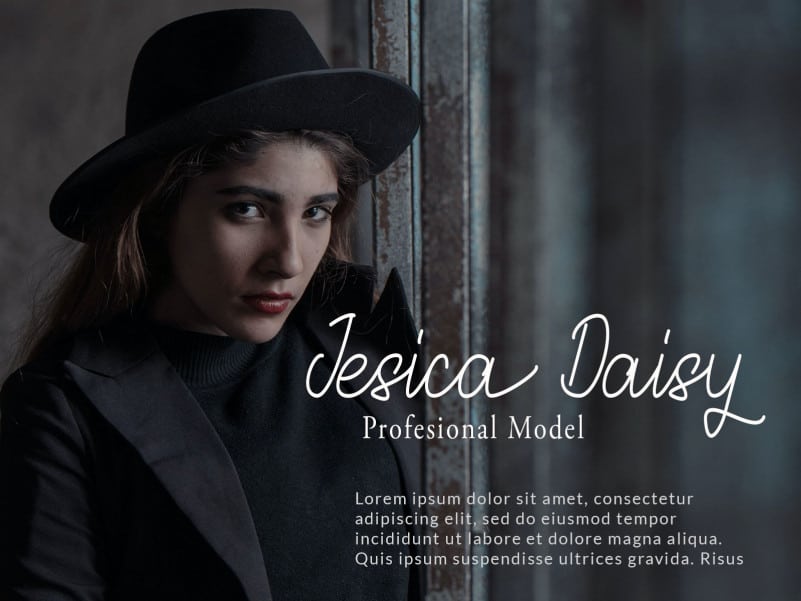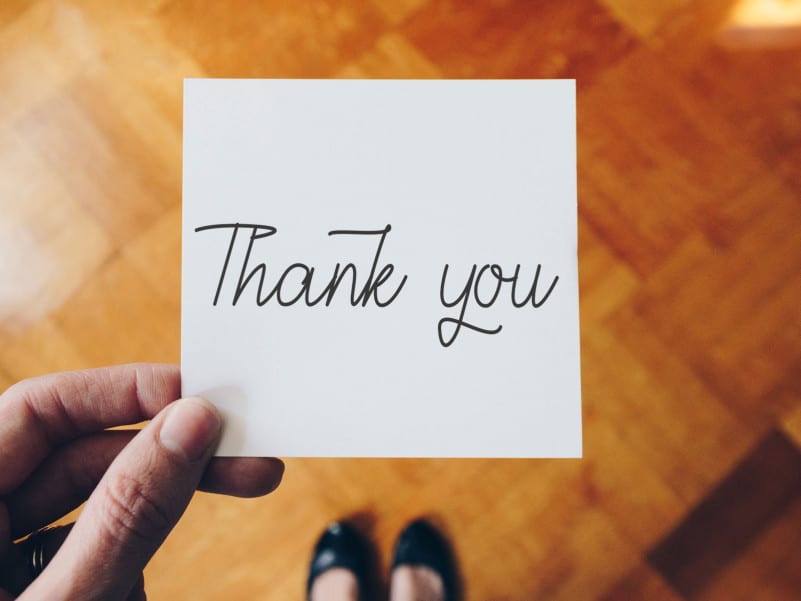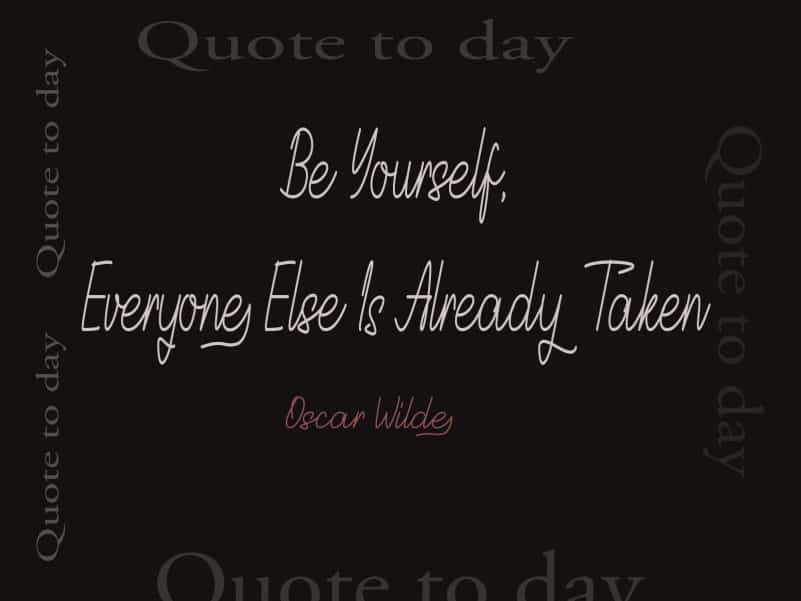
Delisya Handwritten Font
Delisya Handwritten Font is a stylish and incredibly elegant script font. It looks stunning on wedding invitations, thank you cards, quotes, greeting cards, logos, business cards and every other design which needs a handwritten touch.